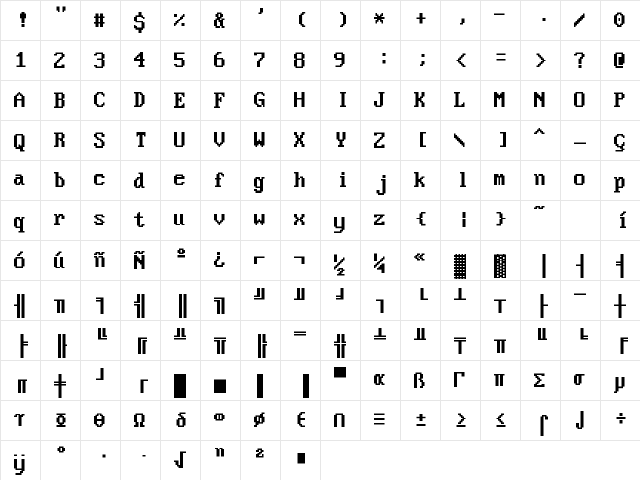
VideoTerminalScreen Normal
Design Context for VideoTerminalScreen Typeface
VideoTerminalScreen offers clean, dependable letterforms without strong stylistic allegiance, making it a practical choice for designers who need flexibility.